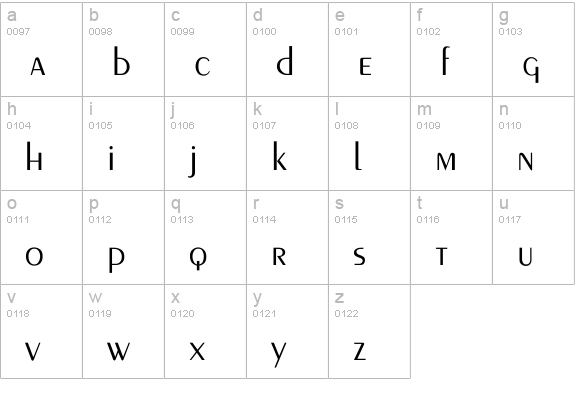
Larwell-Light Font Details
Larwell-Light is a refined, elegant variant in the Larwell typeface family \xE2\x80\x94 well suited to elegant body text, refined sub-headings, and luxury branding.
Larwell-Light font is a stunning typeface that exudes elegance and sophistication. Its slender and graceful letterforms make it perfect for creating a refined and polished look in any design project. The delicate strokes and precise angles of Larwell-Light give it a timeless appeal that is both modern and classic. What sets Larwell-Light font apart is not just its beauty, but also its accessibility. This marvelous font is available for free download at FontsMarket.com, making it an invaluable resource for designers, creatives, and typographers alike. Whether you're working on a logo, a website, or a print project, Larwell-Light font will elevate your design to new heights. With its clean and legible characters, Larwell-Light font is versatile and easy to use. It is perfect for headlines, titles, body text, and everything in between. The generous spacing and balanced proportions ensure readability even at smaller sizes, making it suitable for both digital and print mediums. Larwell-Light font is a true gem in the world of typography. Its sophisticated and refined aesthetic, combined with its free availability at FontsMarket.com, makes it a must-have for every designer's toolkit. Download Larwell-Light font today and let its timeless beauty enhance your next design project.